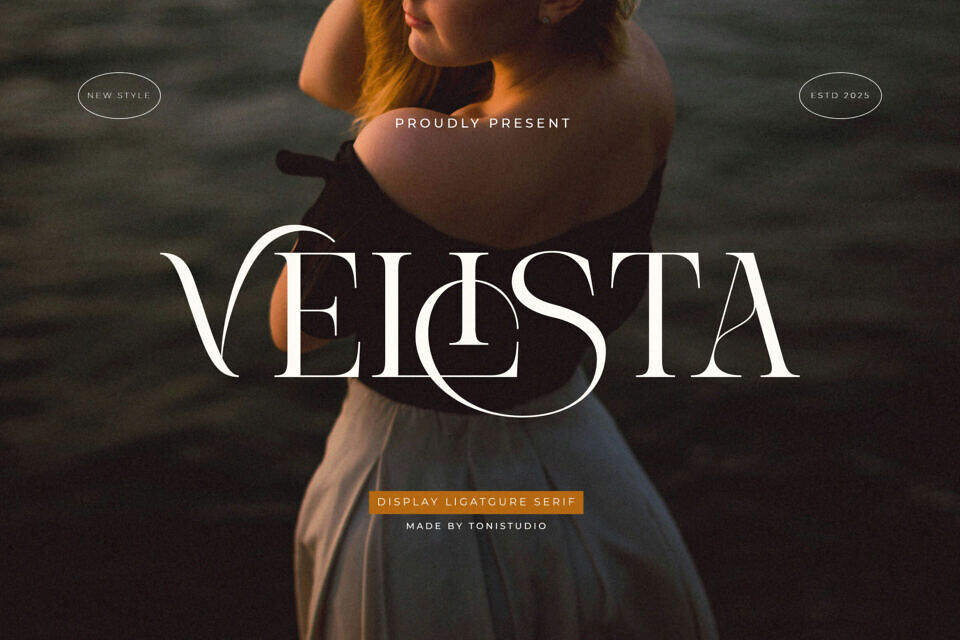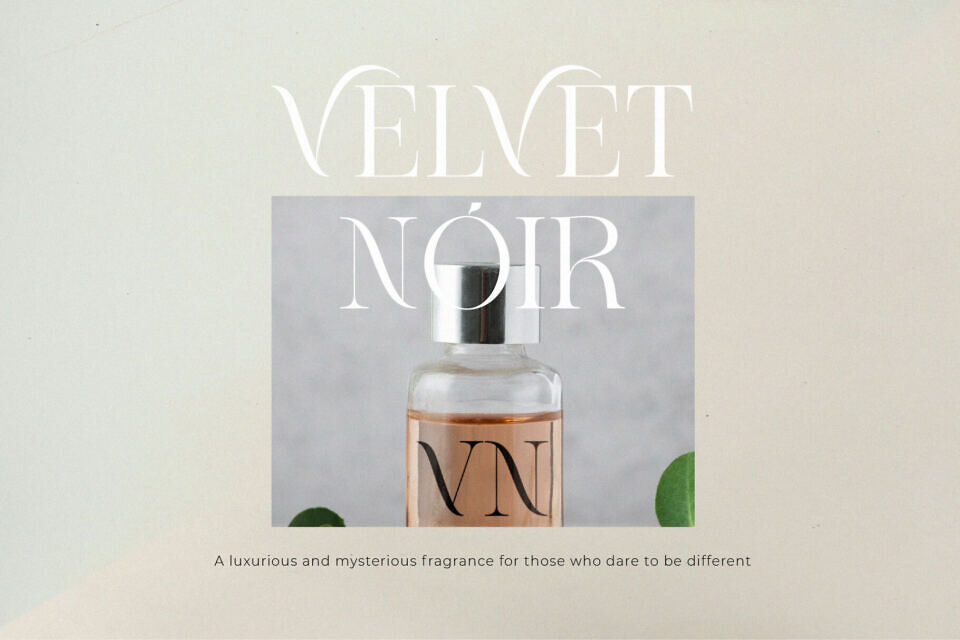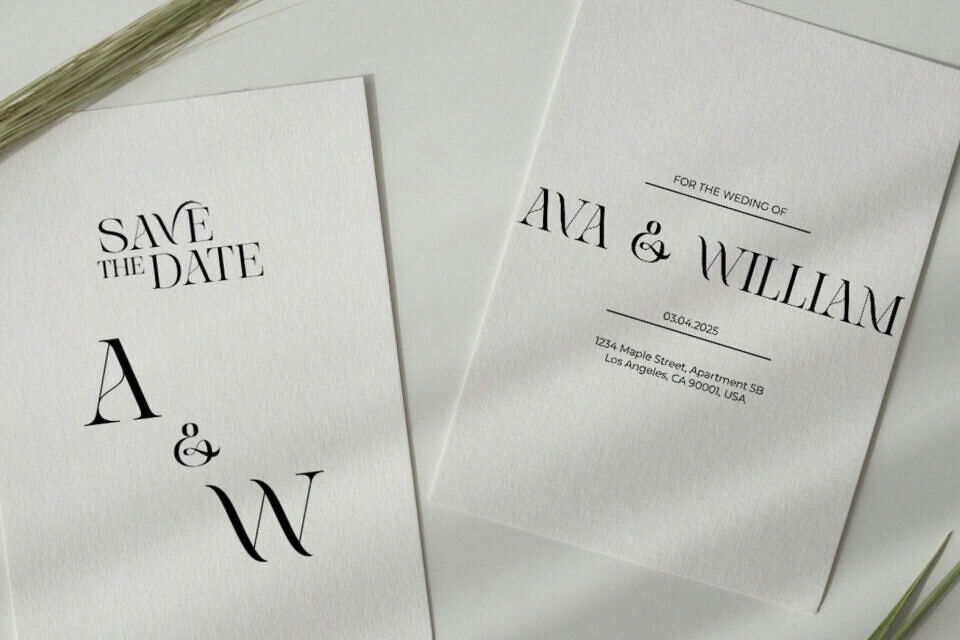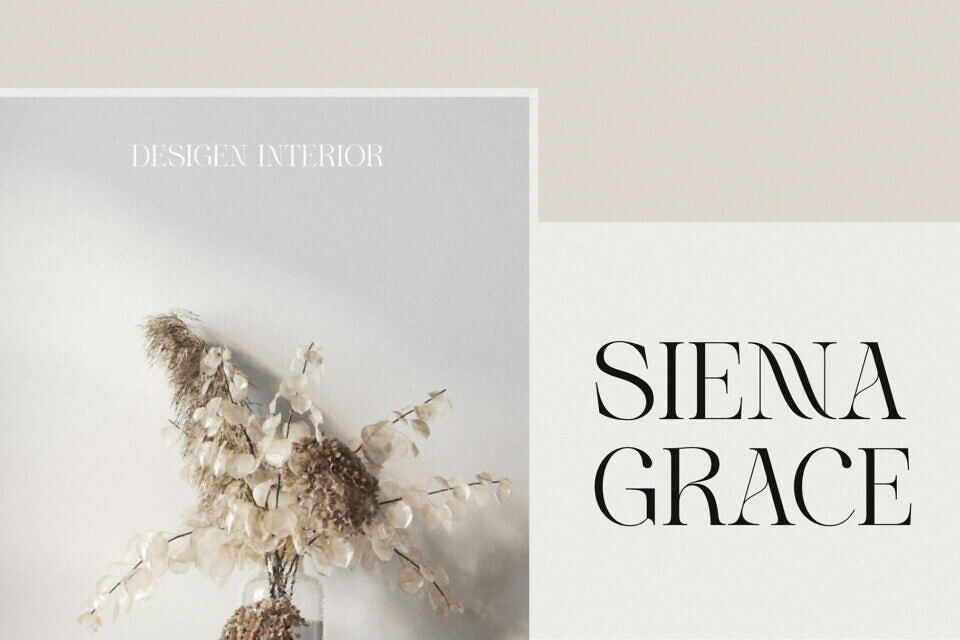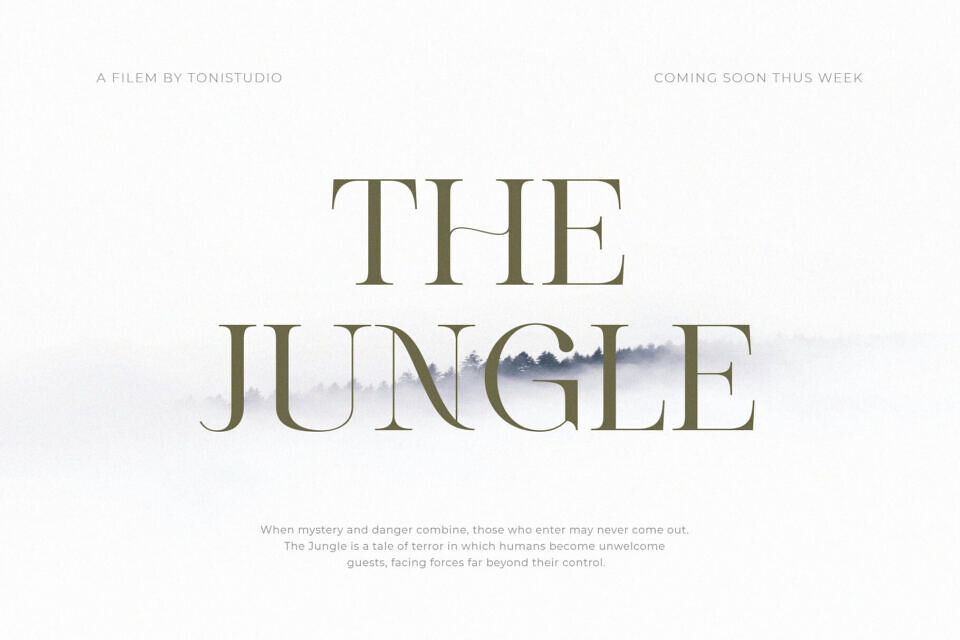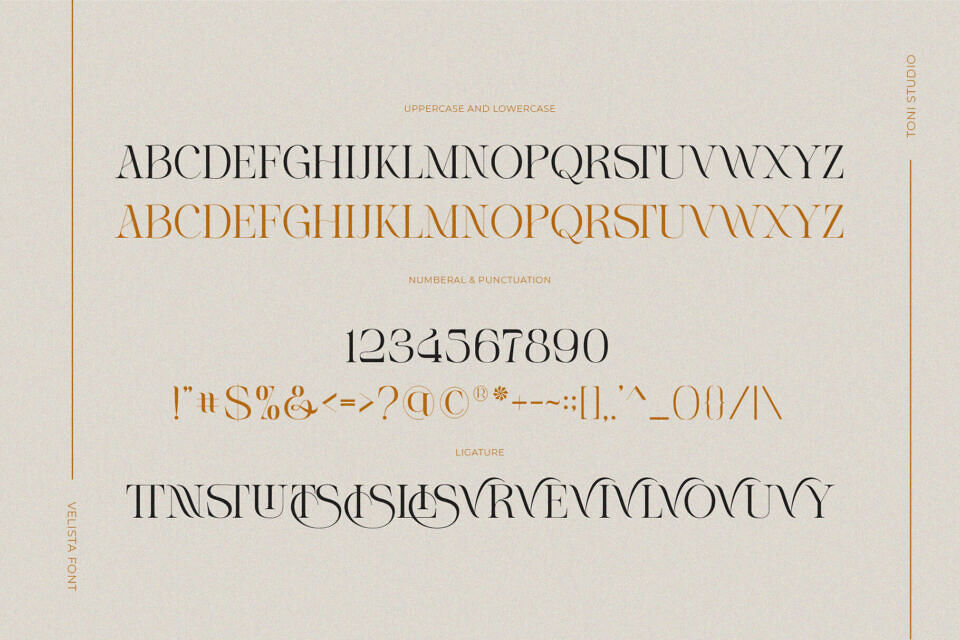
Velista Font
Introducing VELISTA, a luxurious serif typeface that embodies timeless elegance and refined beauty. Designed with meticulously crafted thin yet striking letterforms, VELISTA seamlessly blends sophistication with modern finesse.
Every curve and stroke is carefully shaped to exude grace, while maintaining exceptional readability. The delicate yet defined structure gives it a light and airy feel, making it perfect for high-end branding, editorials, fashion themes, invitations, and sophisticated logo designs. With a touch of exclusivity, VELISTA offers a selection of elegant ligatures and alternate characters, allowing you to elevate your typography with unique, artistic details.